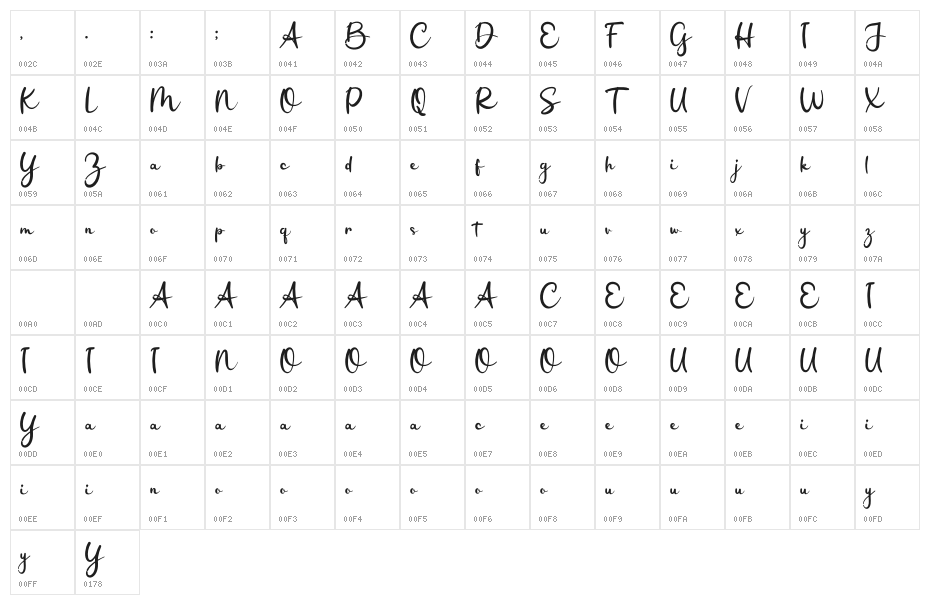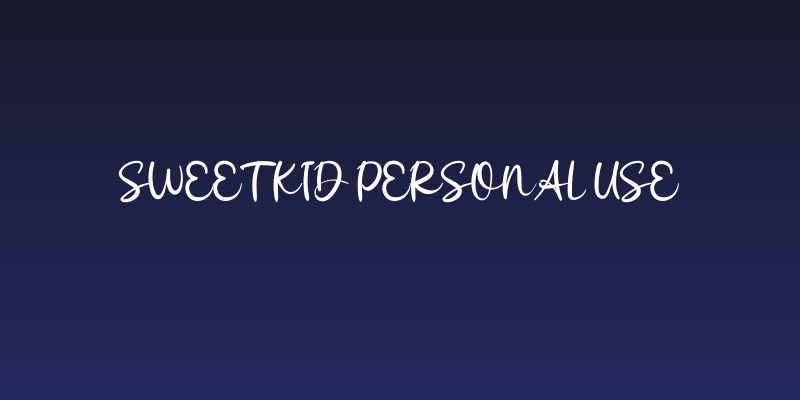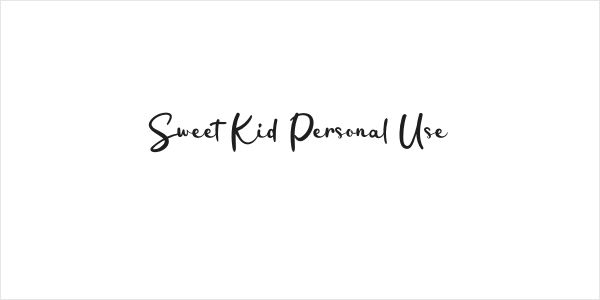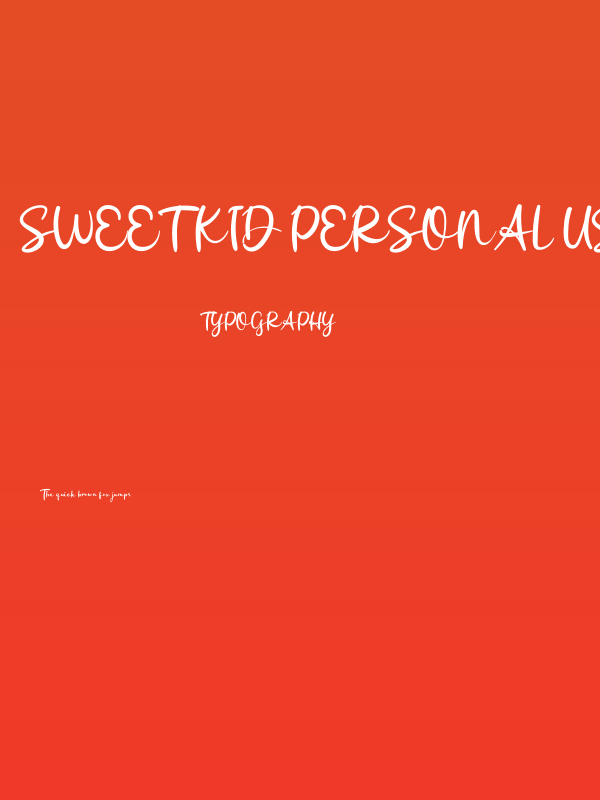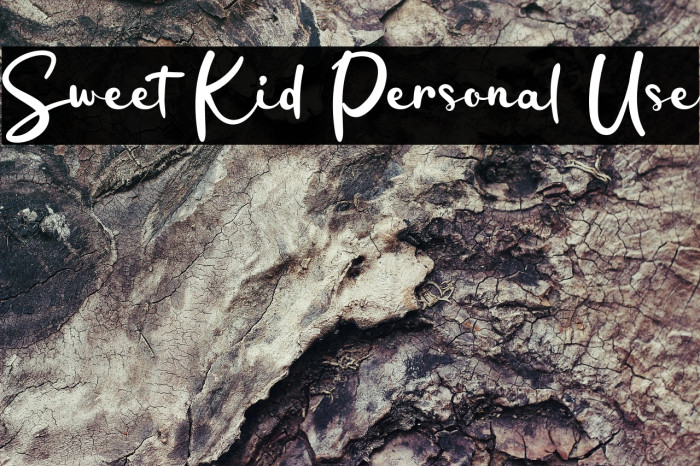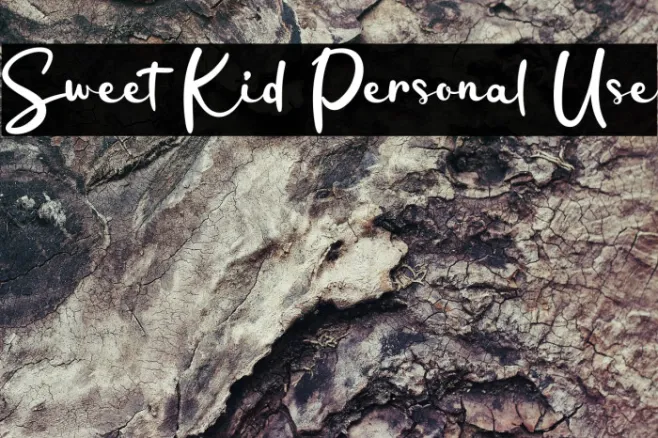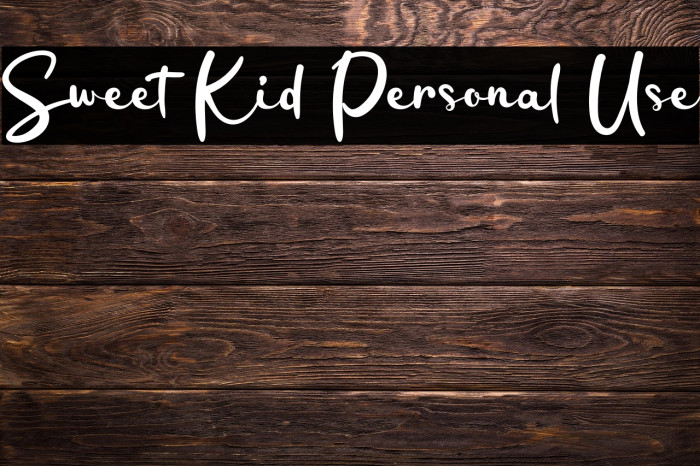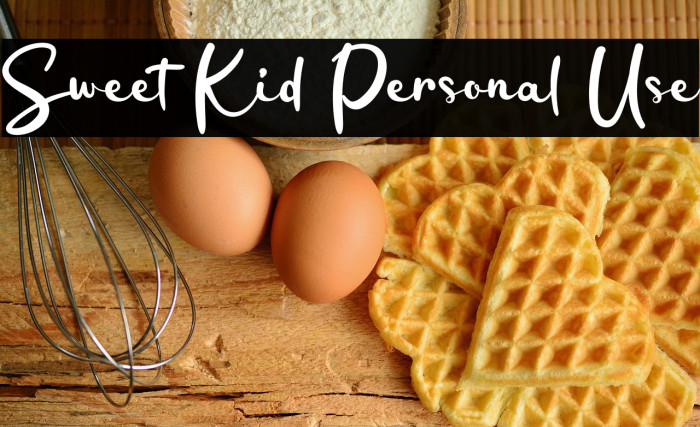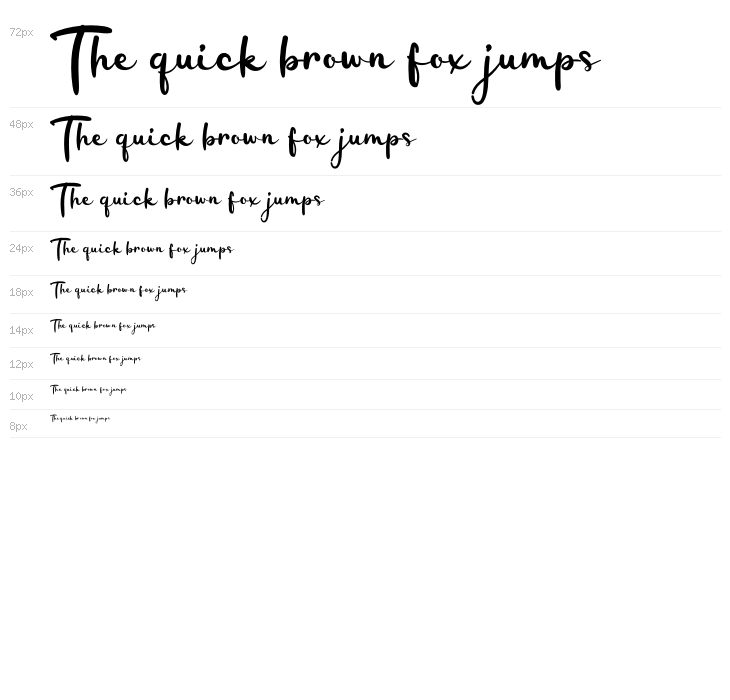
Sweet Kid Personal Use Font
Sweet Kid Personal Use Description
This playful and whimsical script font features a handwritten style with smooth, flowing curves and a casual, friendly appearance. The letters are connected, giving it a cohesive look that mimics natural handwriting. The uppercase letters are bold and prominent, while the lowercase letters maintain a consistent flow. The font lacks special characters, focusing on the alphabet. Its organic and lively nature makes it suitable for projects that require a personal touch or a sense of warmth and approachability.
| Proposed Projects | Ideal for greeting cards, invitations, personal branding, and playful logos. |